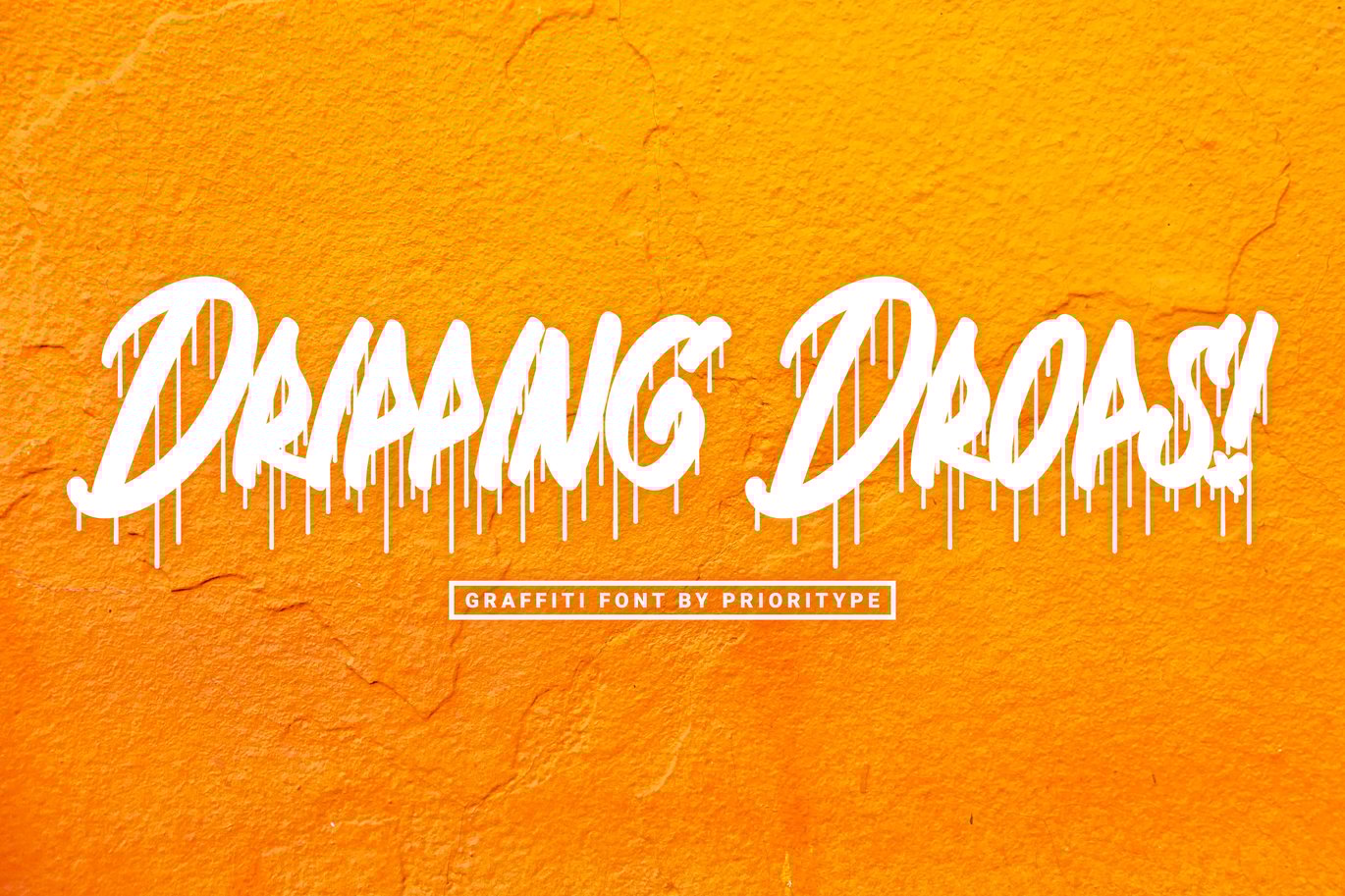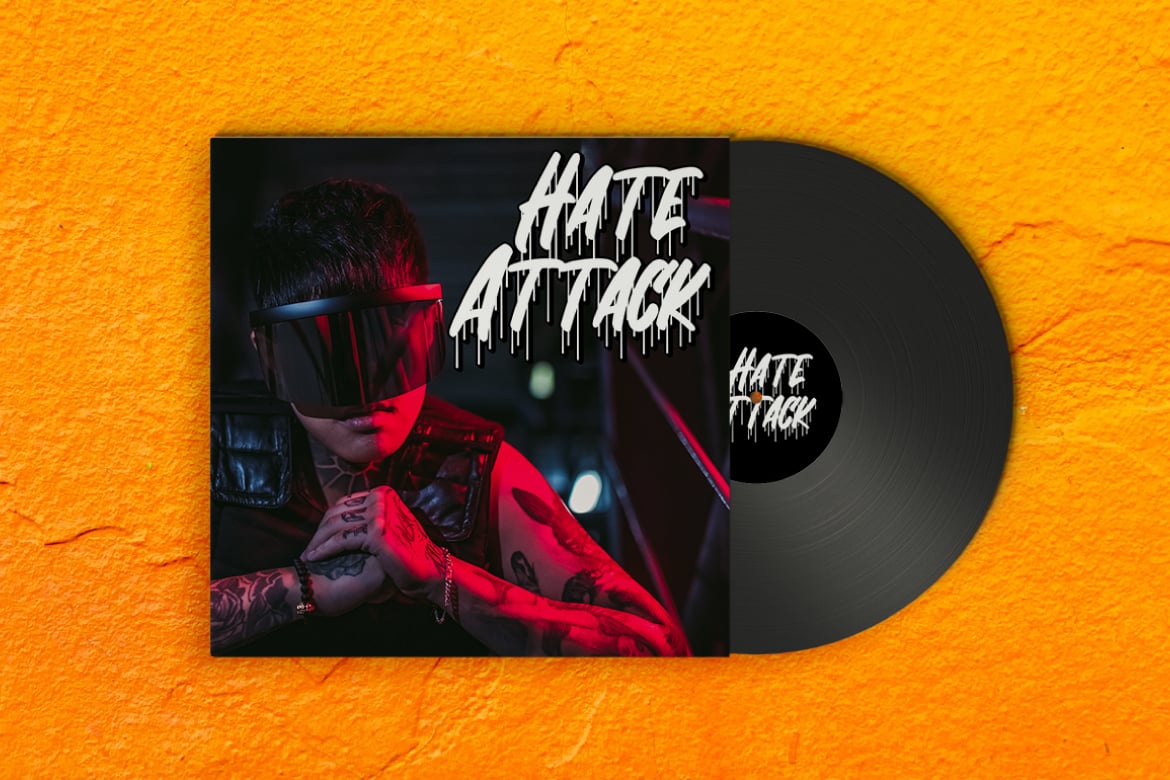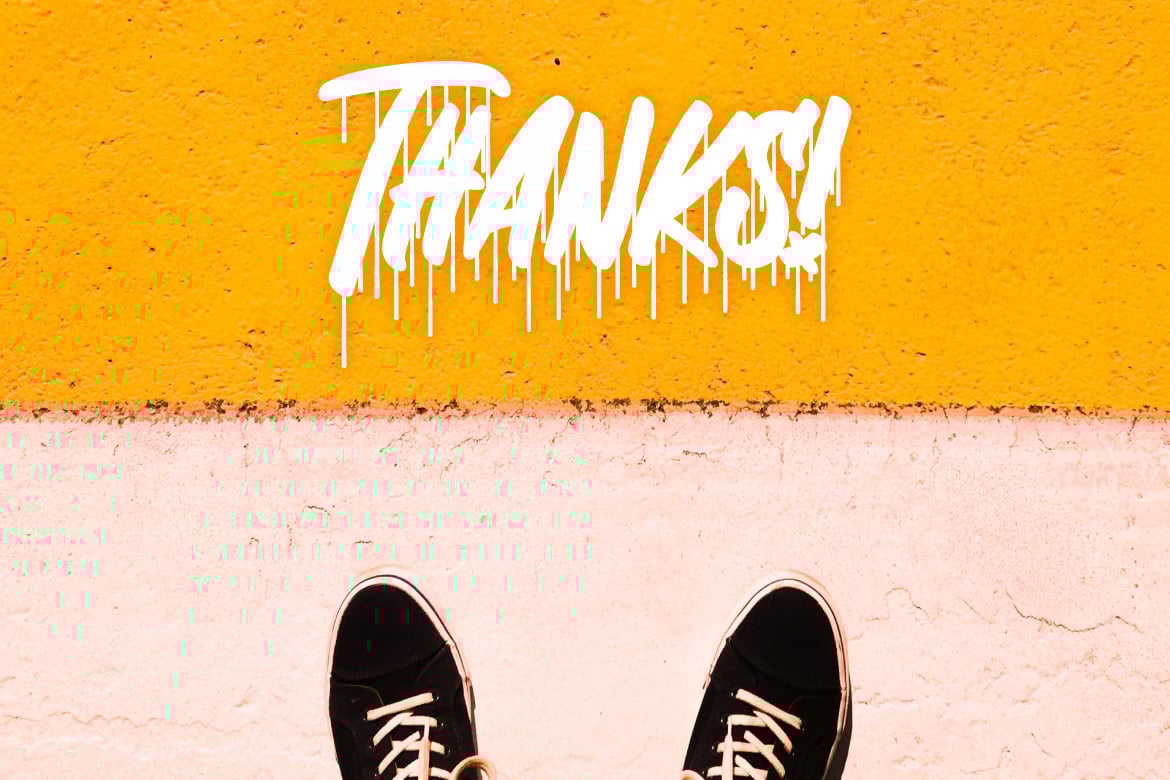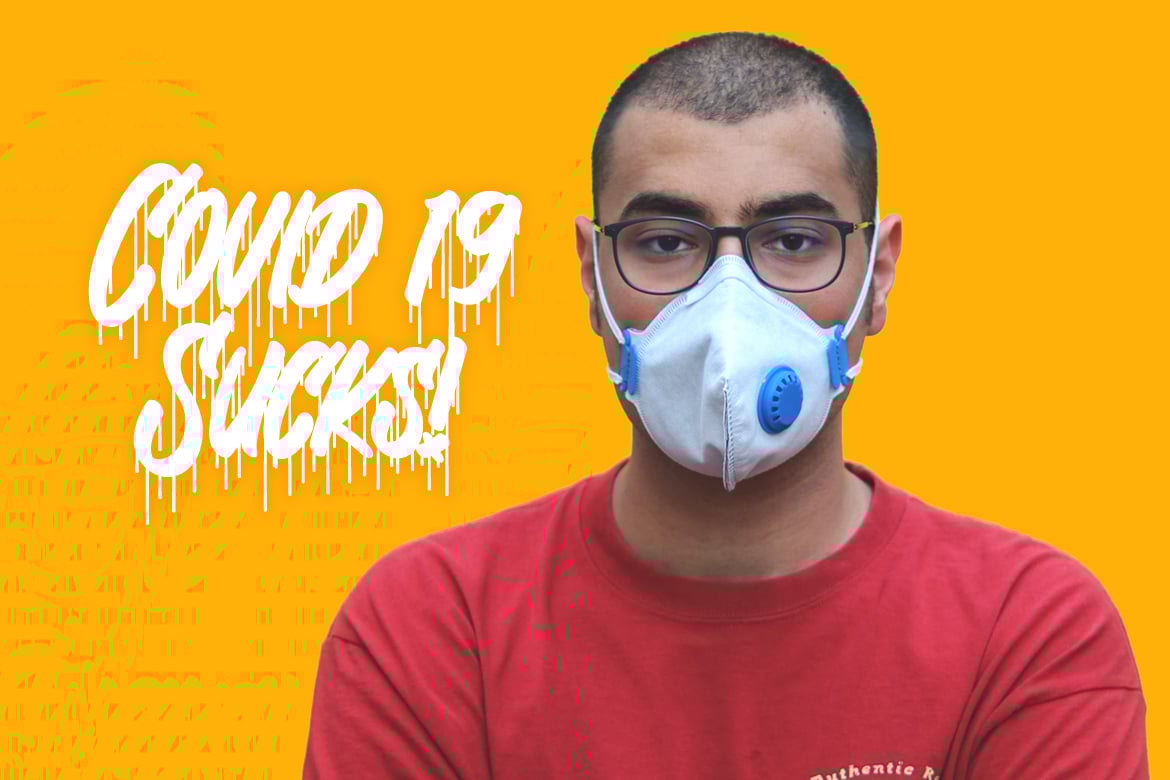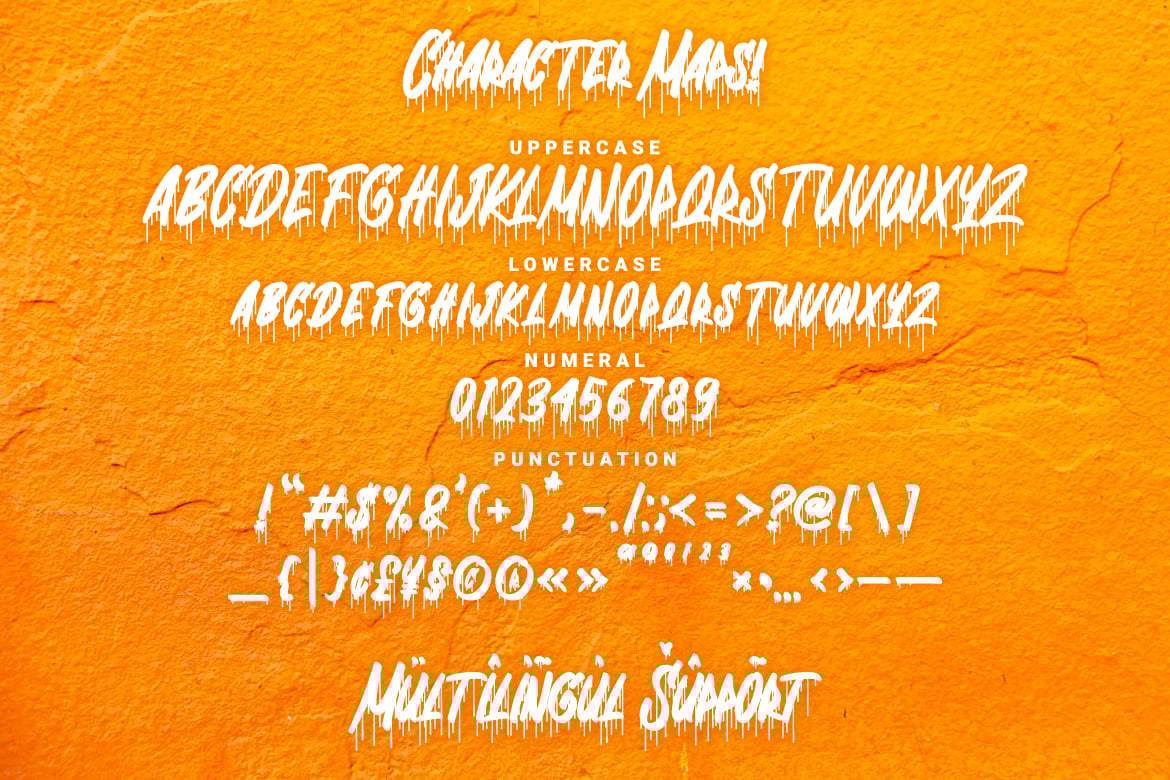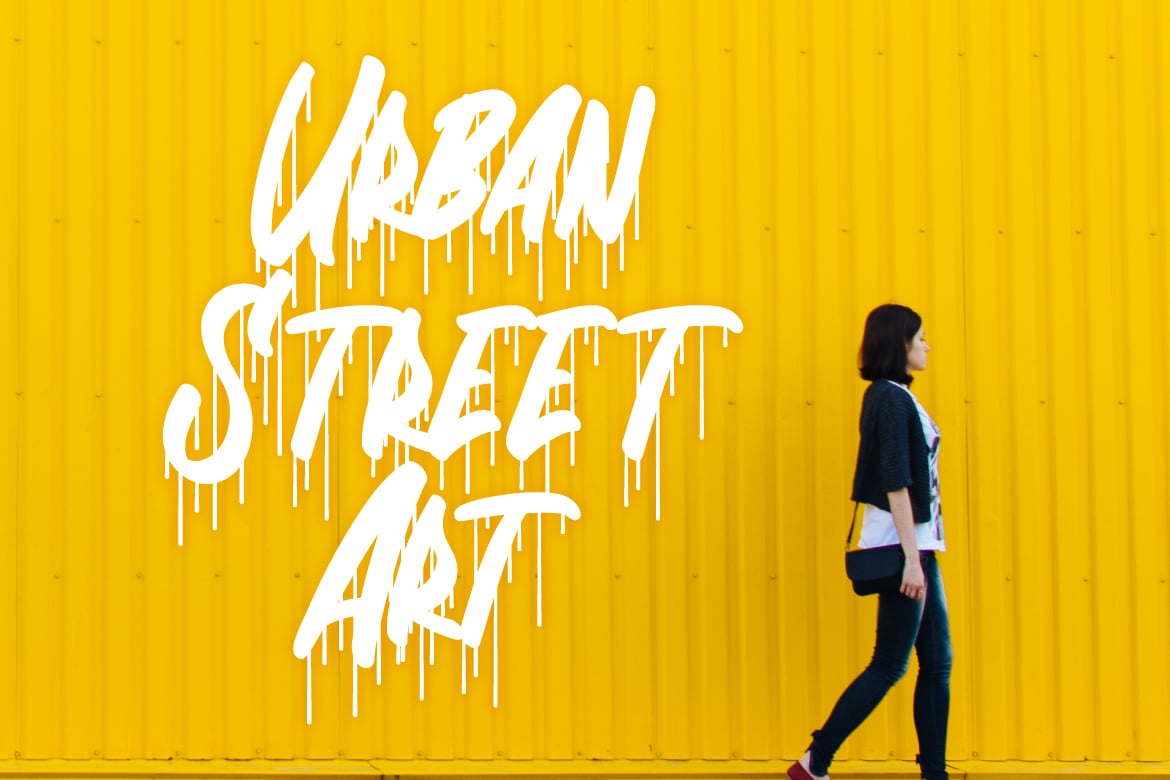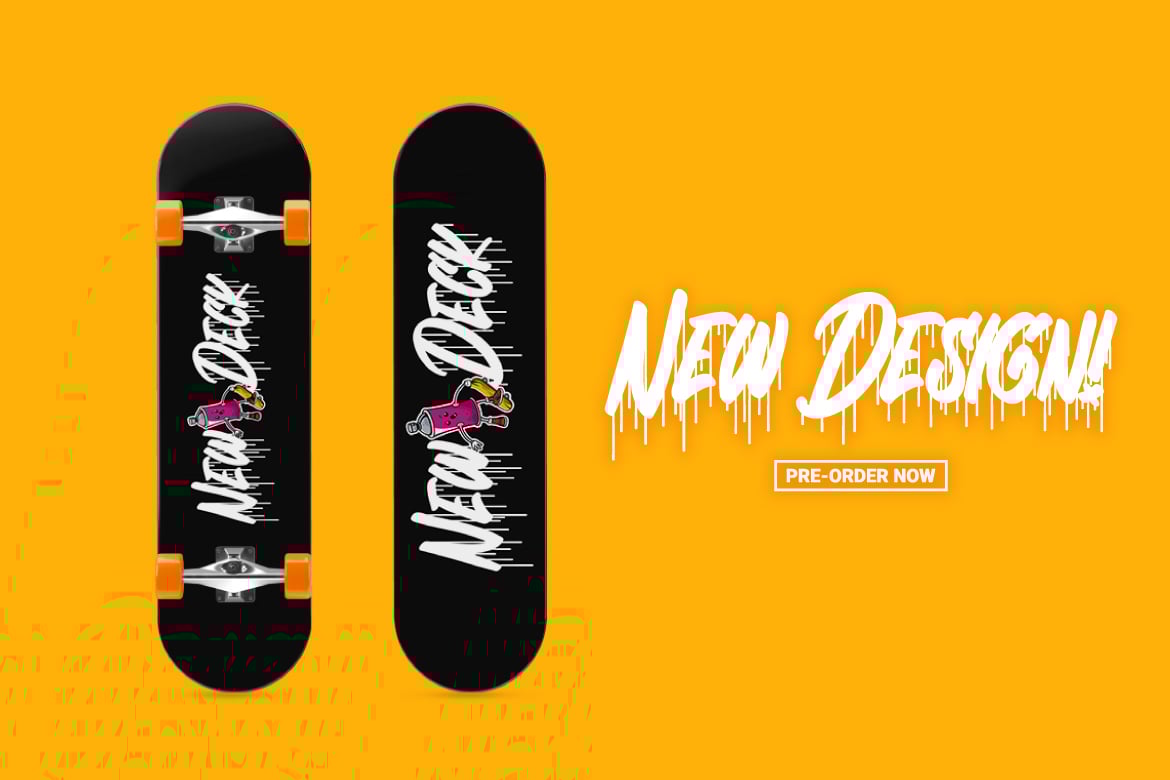
Dripping Drops – Graffiti Font
Inspired by paint dripping and combined with the graffiti artist culture, this font is both eye-catching and character. You can use them in your designs such as posters, music covers, music events etc.
- Features: Uppercase, Lowercase, Numeral, Punctuation, Multilingual.